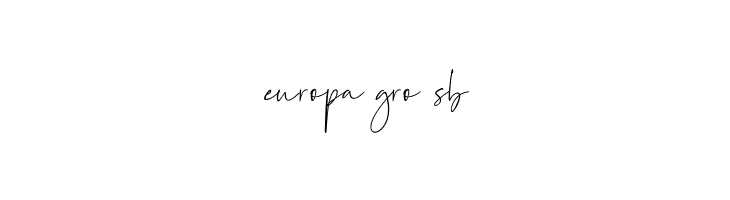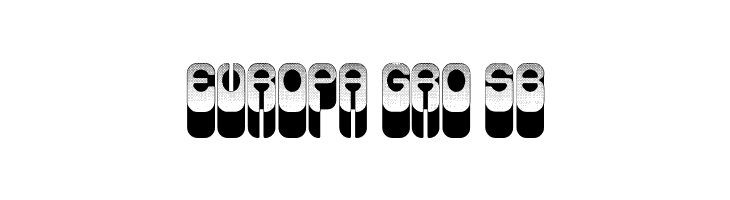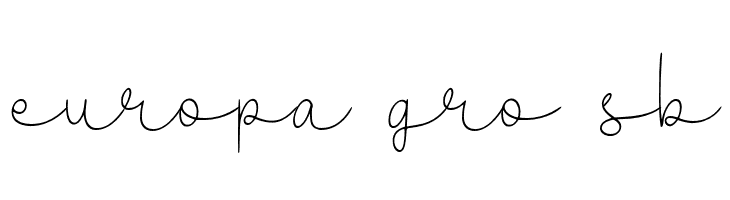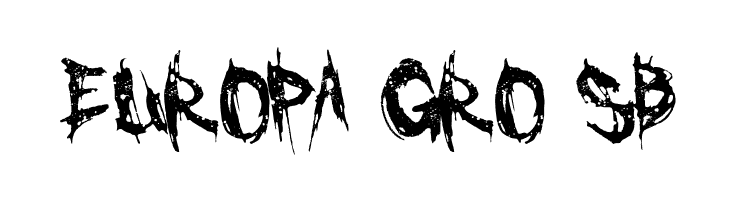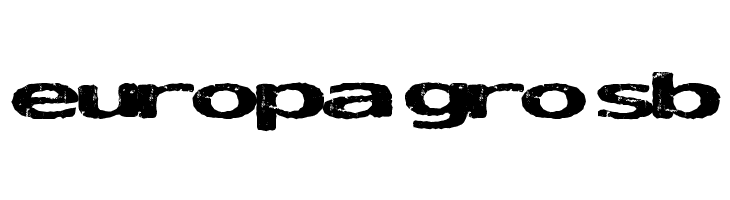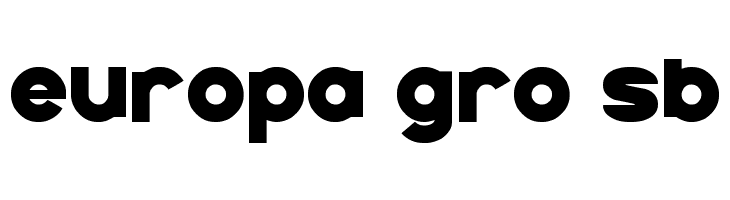
A distressed, grunge-style font with a textured, vintage appearance.
A jagged, thorny font with an edgy, hand-drawn appearance.
A bold, distressed font with jagged edges and a grunge-like, rebellious aesthetic.
A bold, 3D font with a unique shadow effect and rounded characters.
A delicate, handwritten cursive font with elegant loops and smooth lines.
A bold, geometric font with a strong, modern presence.
A modern, geometric font with smooth curves and sharp angles.
A modern, elegant handwritten font with thin, flowing lines and graceful curves.
A bold, distressed font with a rugged, vintage appearance.